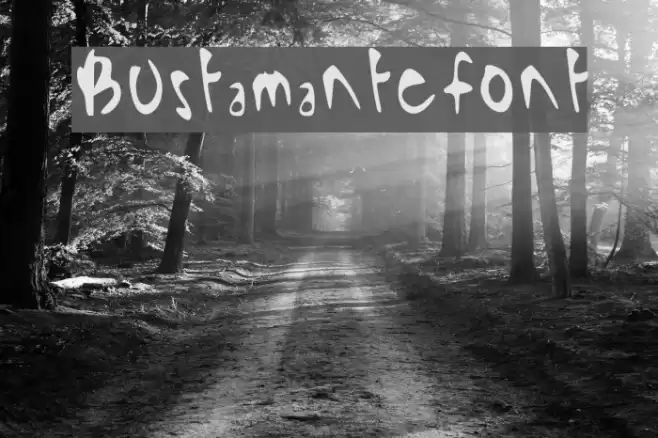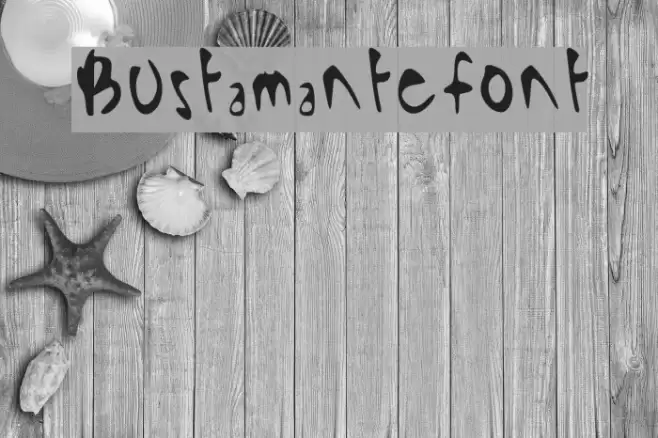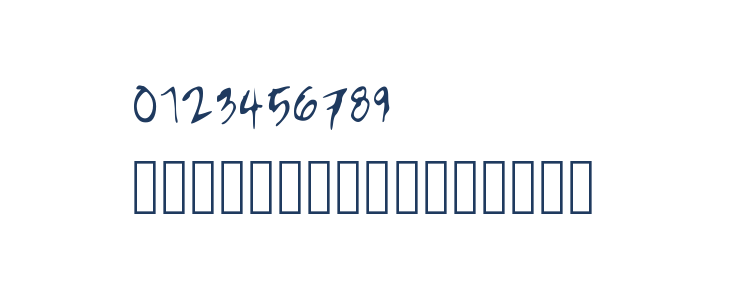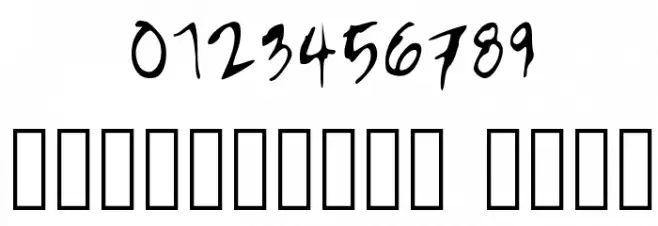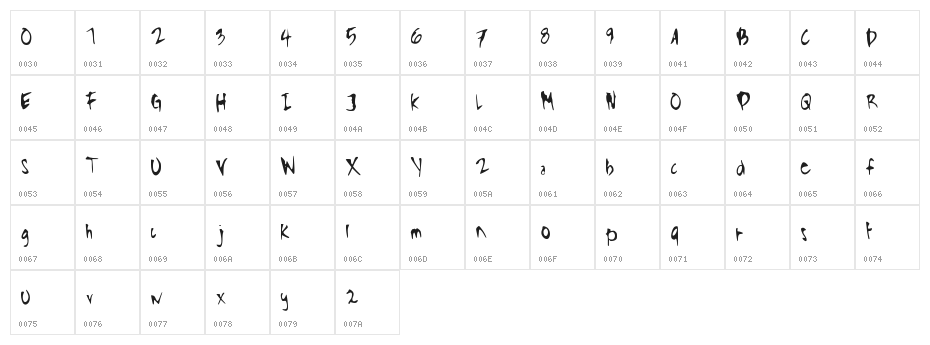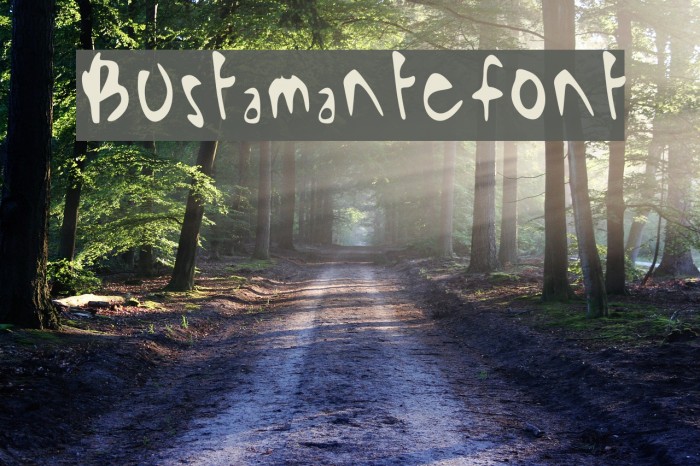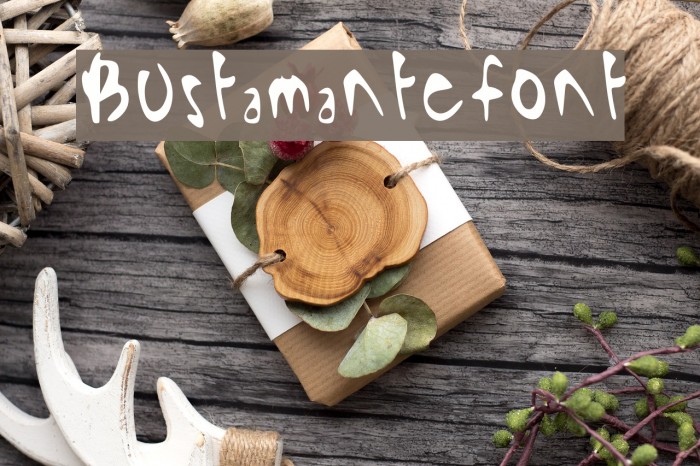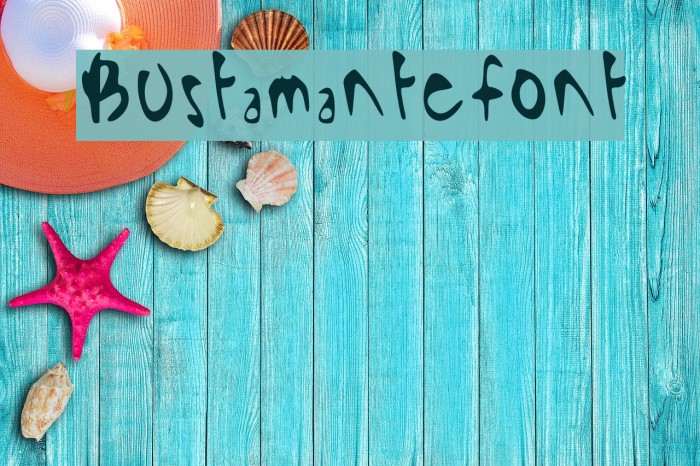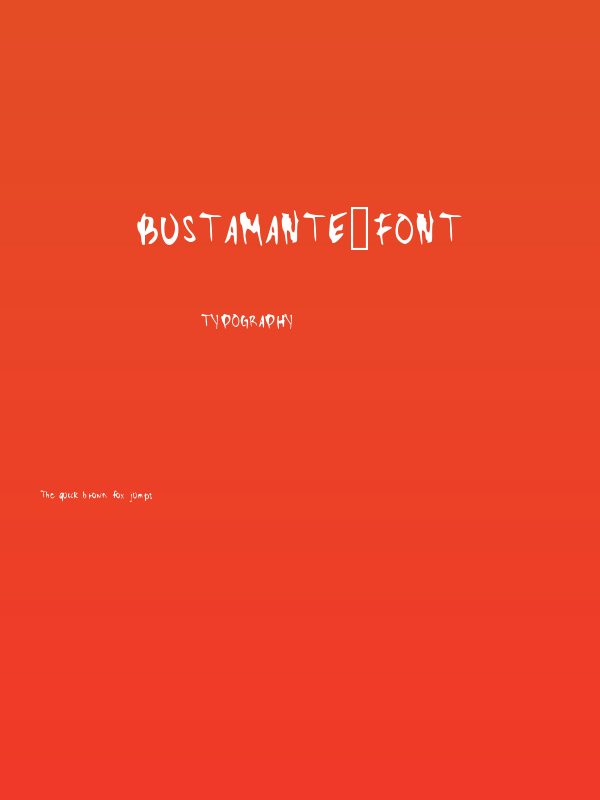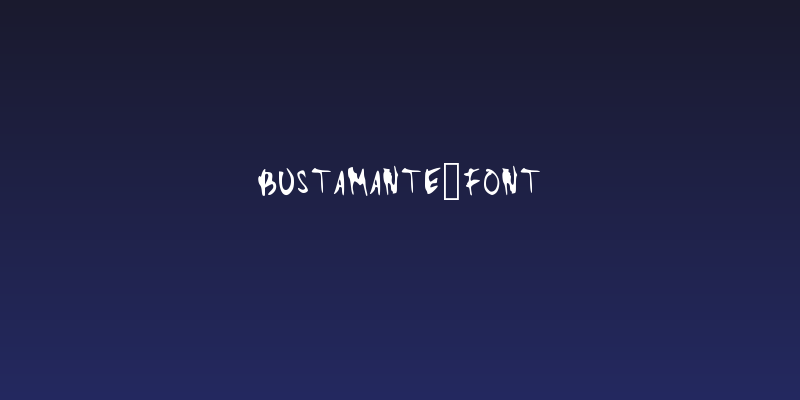
Bustamante_font Font
Bustamante_font Description
This font features a bold and expressive handwritten style, characterized by its dynamic and irregular strokes. The letters exhibit a playful and artistic flair, with varying thicknesses that add a sense of movement and energy. The uppercase and lowercase letters maintain a consistent style, while the numbers and special characters complement the overall aesthetic. The font's unique appearance makes it suitable for creative and informal projects, where a personal touch is desired.
A bold, expressive handwritten font with dynamic strokes from Comic fonts.